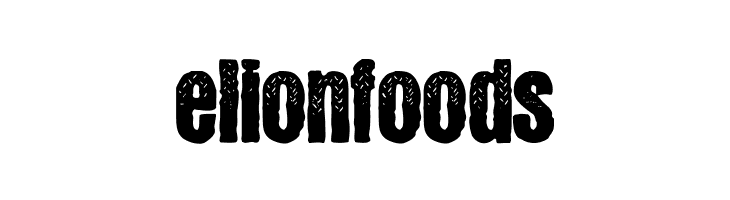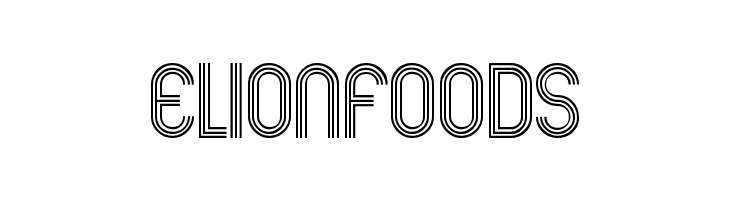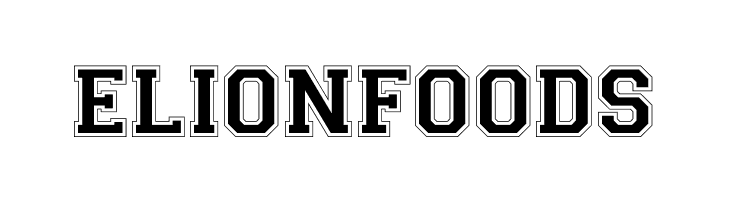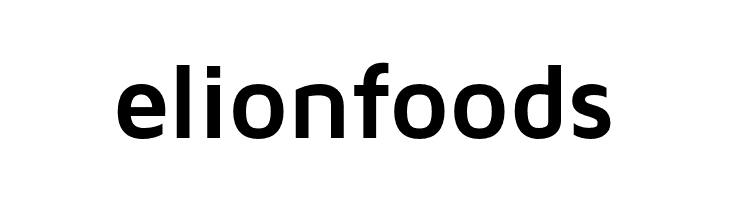
Sansus Webissimo Font
Font by
filsonkiol
A bold, modern sans-serif font with clean lines and balanced spacing.
Kanit Black Italic Font
A bold, italicized font with a dynamic and modern style.
CinzelDecorative-Regular Font
A classic and elegant serif font with decorative flourishes.
CartoGothicStd-Bold Font
A bold, modern sans-serif font with clean lines and strong legibility.
Data Control Font
Font by www.vicfieger.com
A geometric, futuristic font with bold, angular letterforms and consistent stroke widths.
Hemi Head 426 Font
A bold, angular font with a futuristic and sporty design.
Fabrica Font
Anja Eliane accent Nornal Font
A bold, rounded font with a playful and friendly style.
Quran Madina. Font
A traditional Arabic script with elegant, flowing calligraphy.
Birds of Paradise Font
An elegant, cursive font with flowing, connected letters and refined loops.
FSP DEMO - Faito Regular Font
A dynamic, handwritten-style font with bold, slanted characters.
Eurasia Normal Font
A modern geometric sans-serif typeface with a clean and balanced design.
Molot Font
A bold, geometric typeface with a strong, industrial feel.
NFL Cincinnati Bengals Font
A bold, blocky font with a strong, modern presence.
Barlow Condensed Black Italic Font
A bold, condensed, and italic typeface with high contrast and tight spacing.
OPTIAlpine-BoldItalic Font
A bold, italicized font with a strong and dynamic presence.
Portrait Font
Artistic font with hand-drawn portrait illustrations for each character.
Wizards Font
A bold, blocky font with a vintage sports feel, perfect for impactful headlines.
SKATE Font